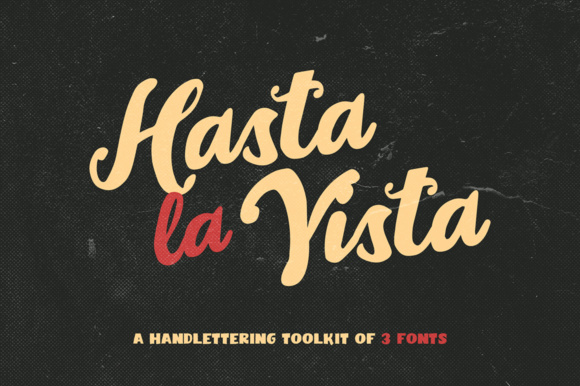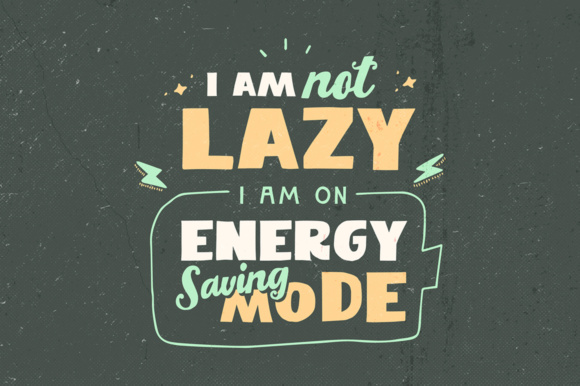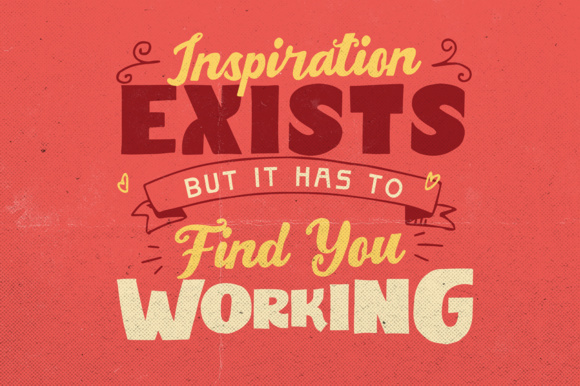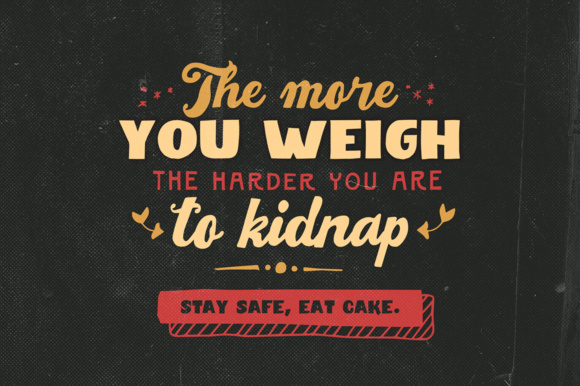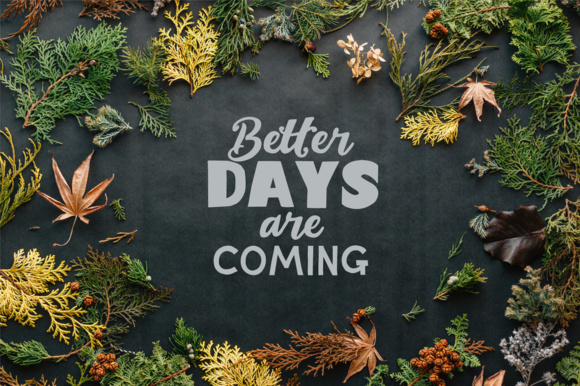
Hasta La Vista Trio Font
About Hasta La Vista Trio Font
The Hasta La Vista is a hand lettering toolkit that consists of 3 fonts; Hasta La Vista Regular, Script, and Bold.
Those 3 fonts can be composed together to form a perfectly imperfect hand lettering artwork which you can use for a t-shirt design, wall decorative art, or maybe for some personal work to post on Instagram.